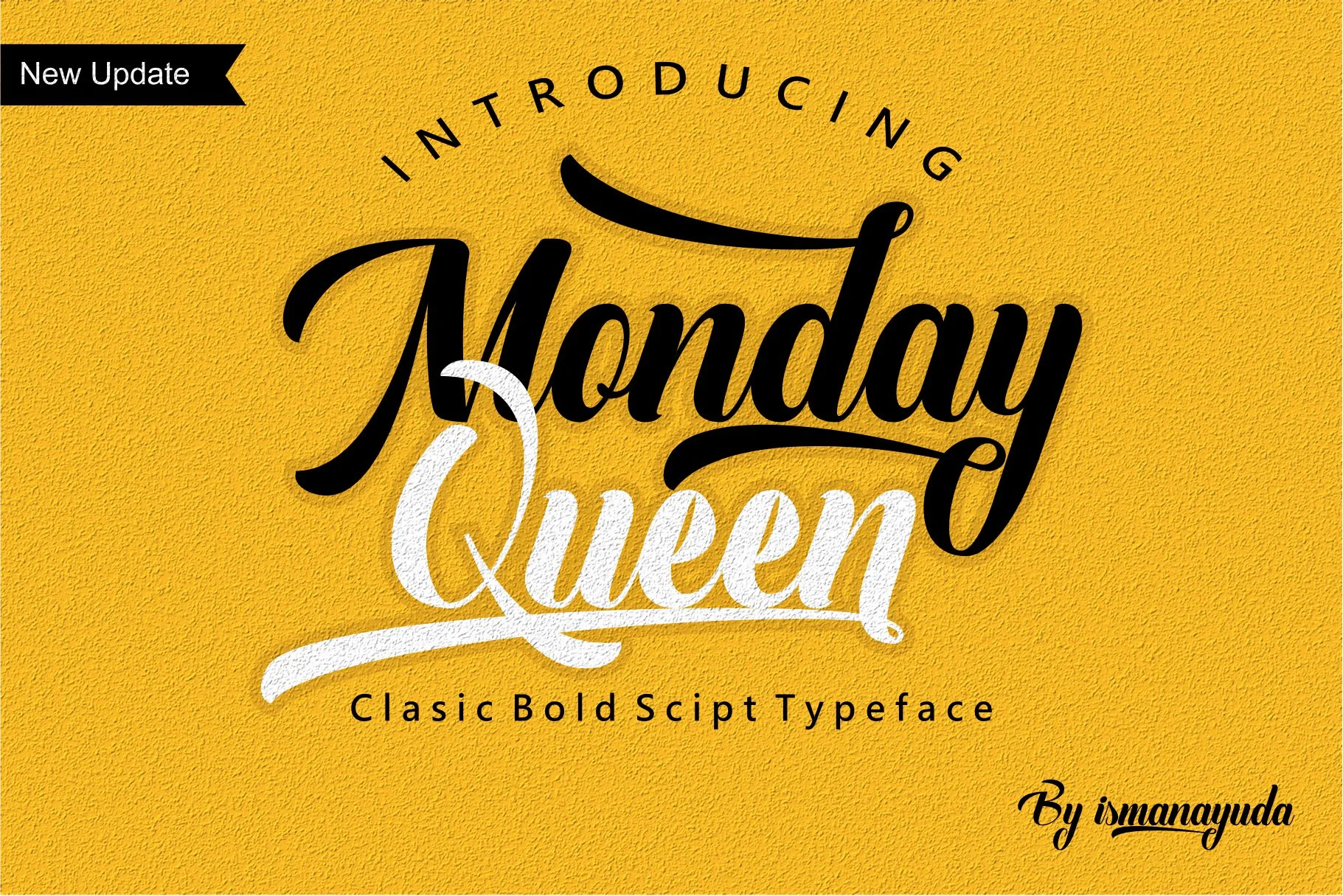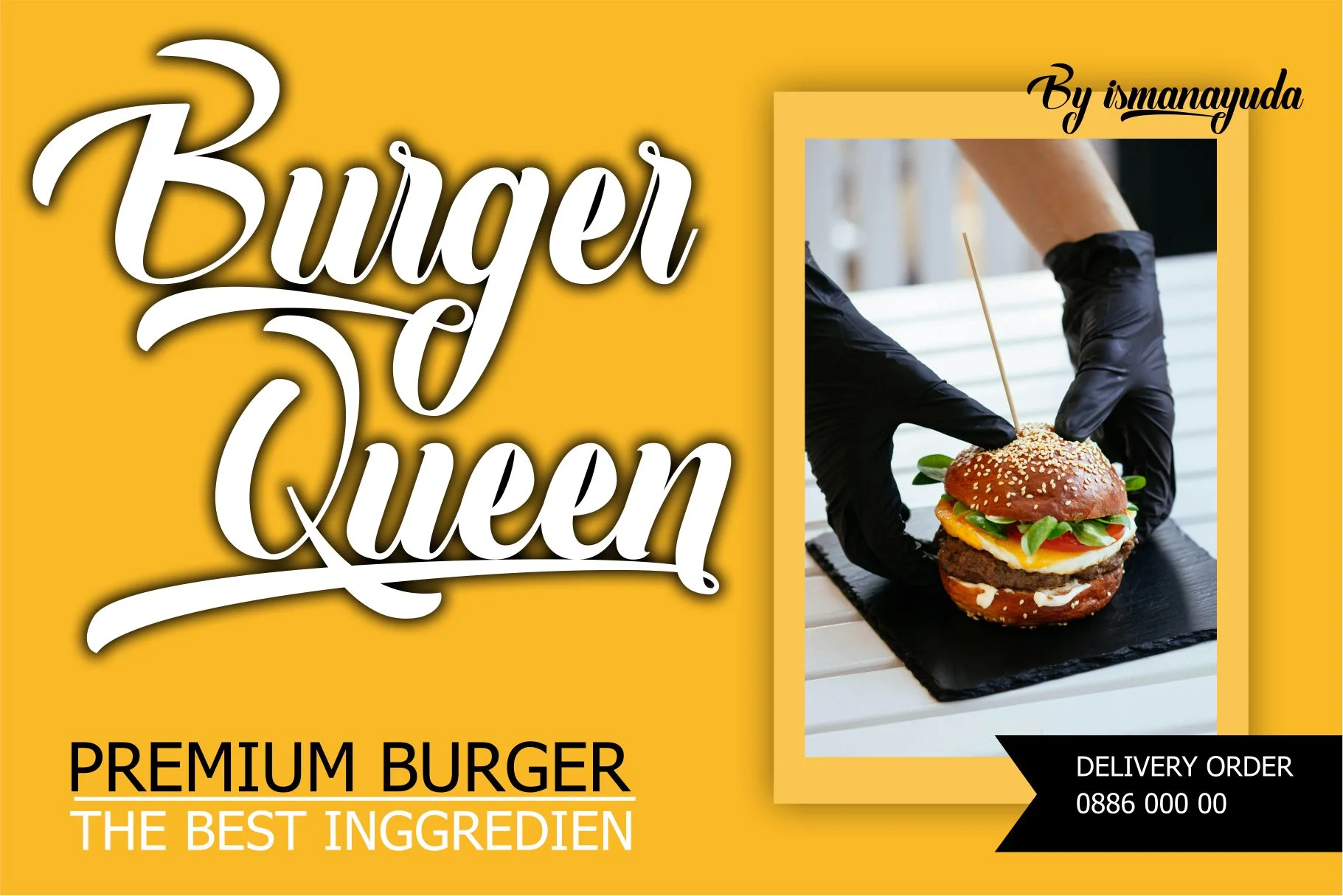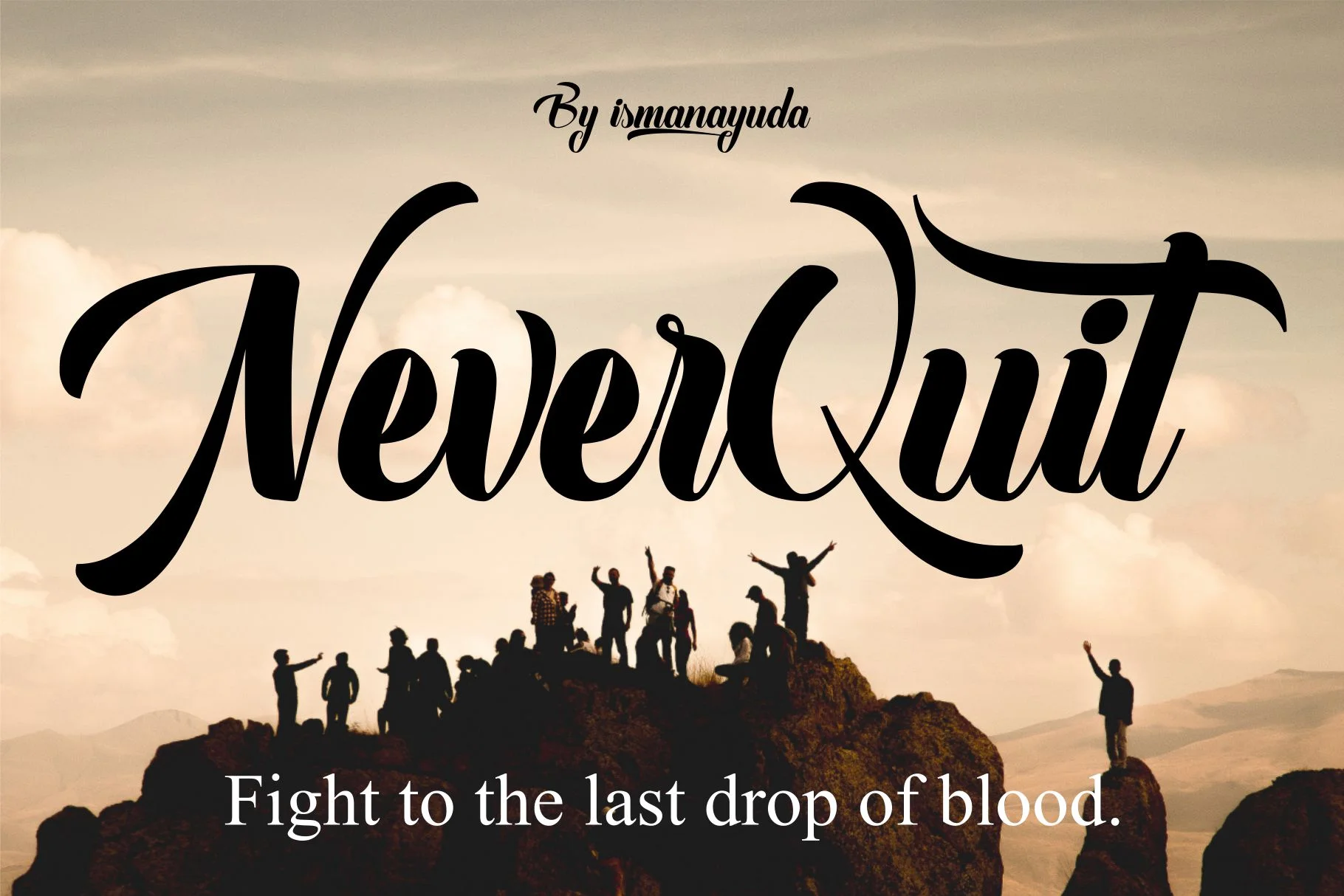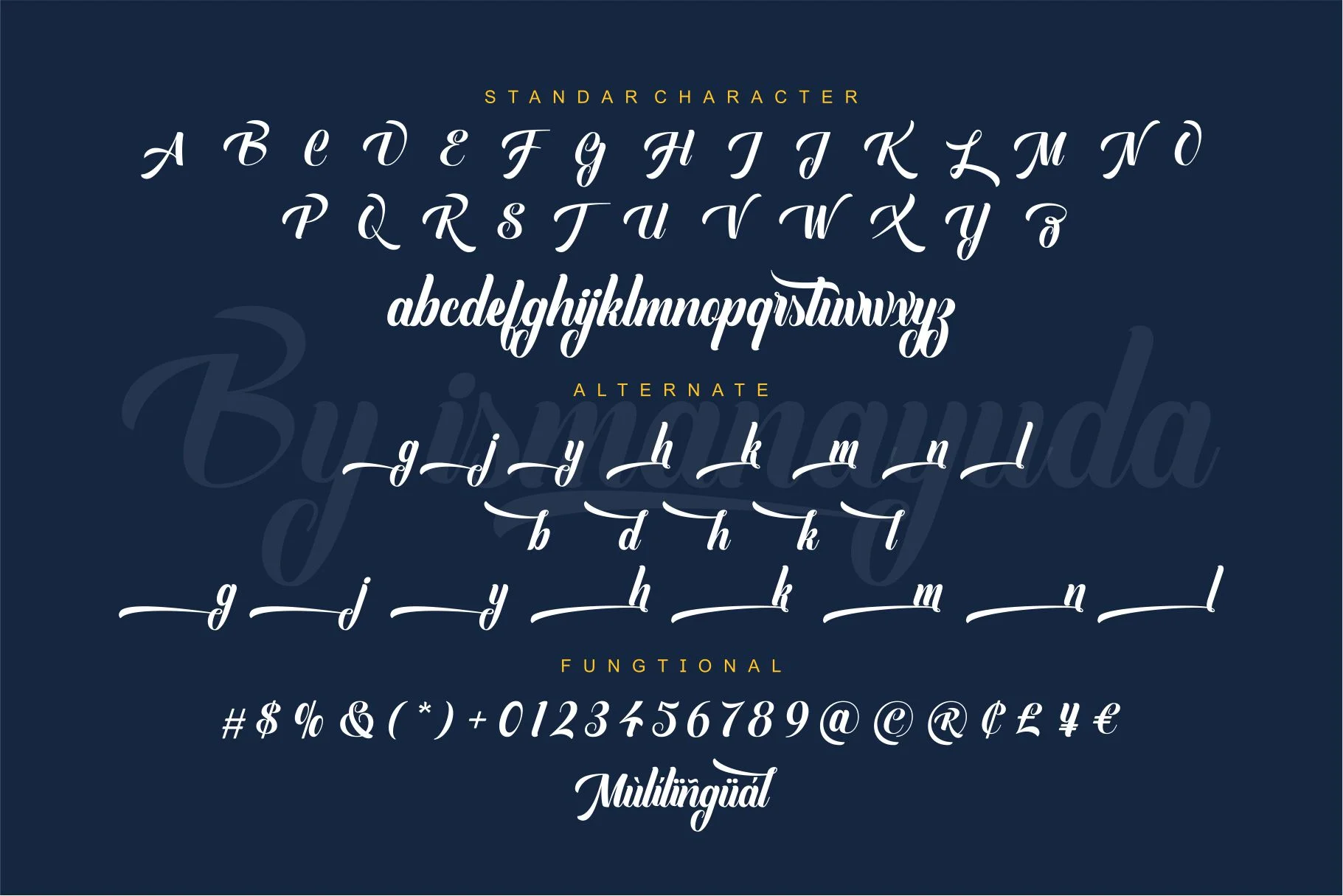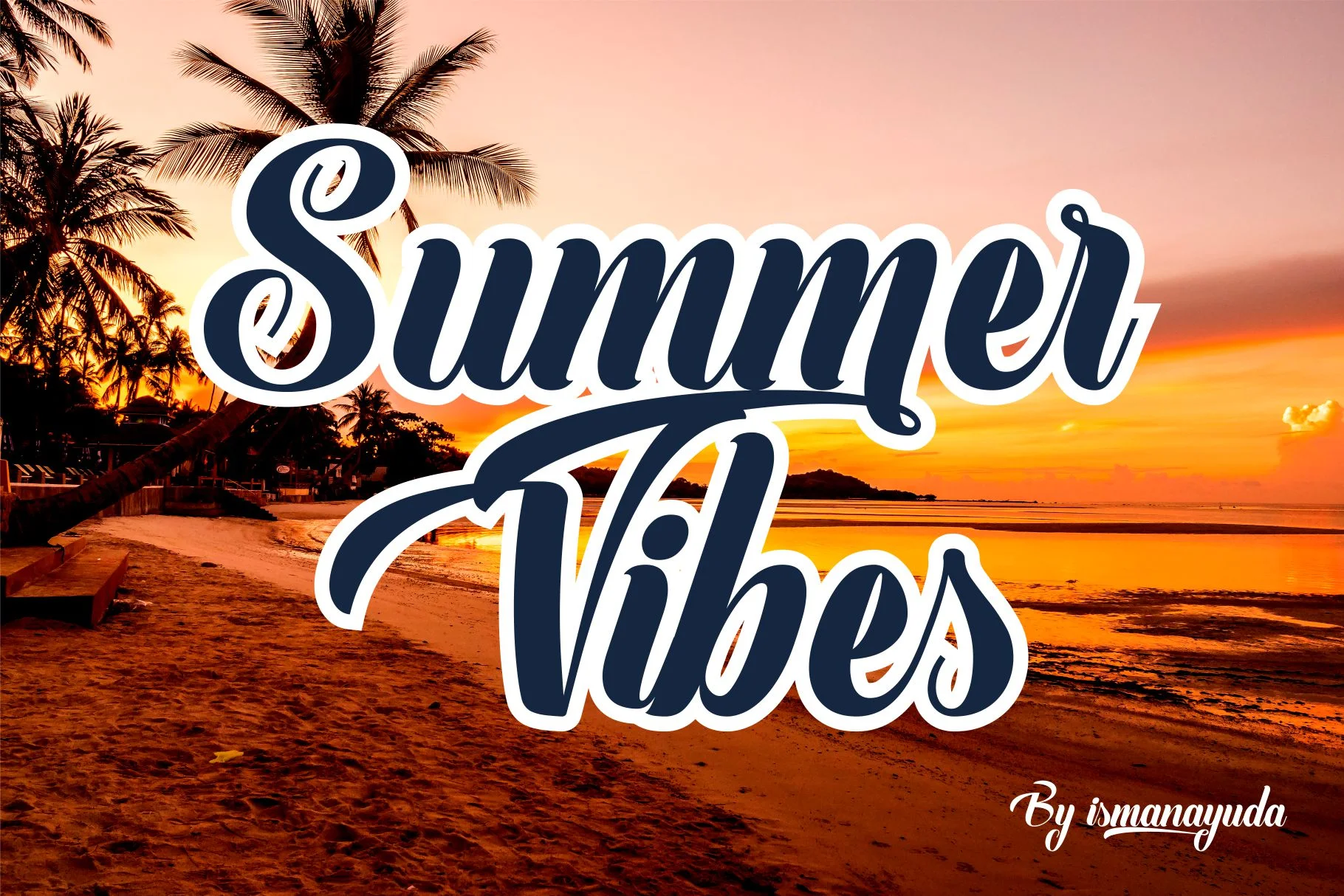
Monday Queen
Monday Queen is a bold, uniquely designed classic script typeface that blends traditional calligraphy with a modern, hand-drawn aesthetic. It is characterized by thick, flowing strokes and prominent, sweeping swashes that give it a sense of movement and elegance. The font features connected letterforms typical of formal scripts, but its boldness adds a contemporary "nuance" that makes it stand out. This high-impact display font is specifically designed for creative projects such as vintage logos, apparel design, branding, and posters where a personal yet powerful touch is needed.